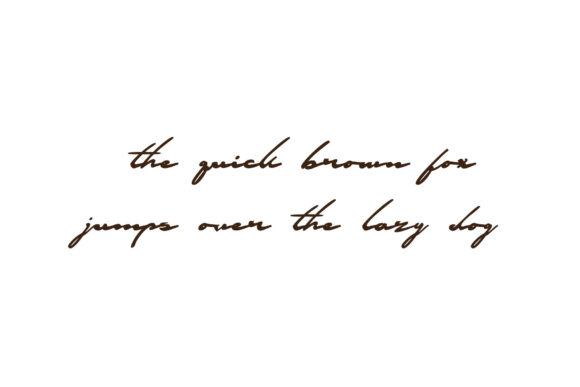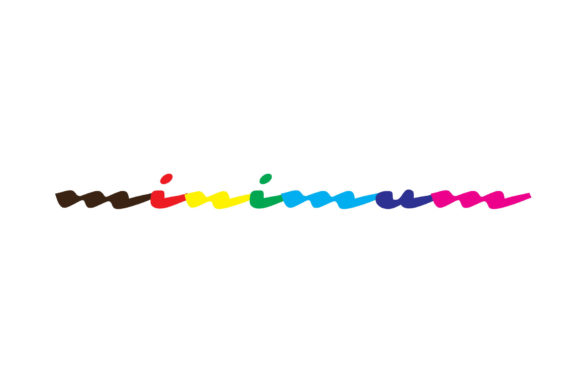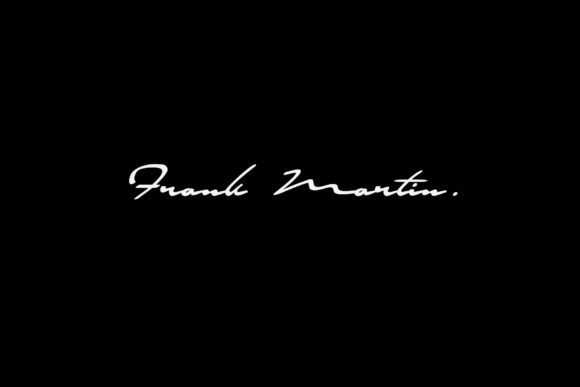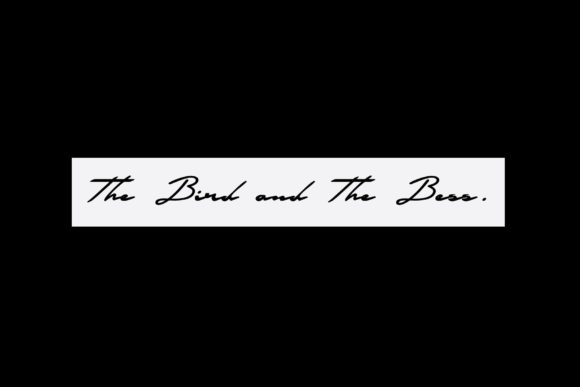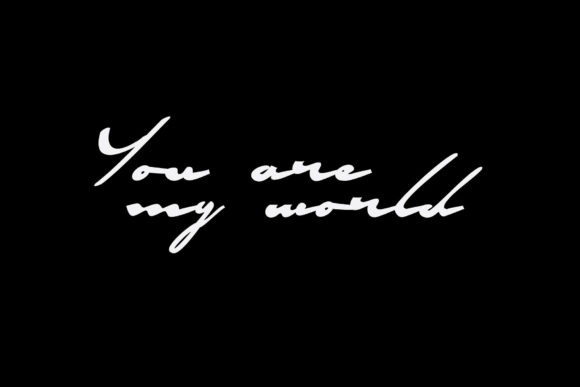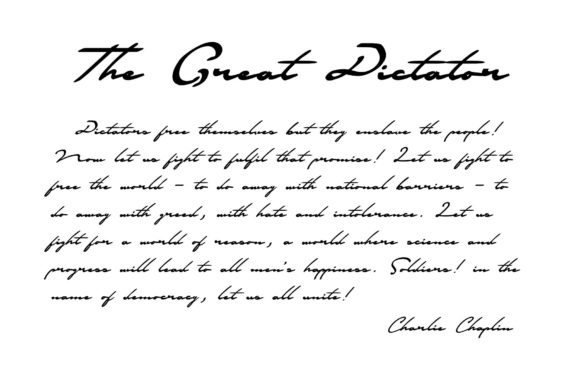
Introduction to Mondio Font
Have you ever stared at a blank page, trying to bring a creative project to life, only to be met with a sea of uninspiring font options? It’s a frustrating feeling, and one that designers know all too well. But what if you could find the perfect font to elevate your design and make it truly shine?
Enter the Mondio Font, a lovely and delicate script font that exudes elegance and class. With its high quality design and transparent background, this font is the perfect addition to any creative project. Whether you’re a seasoned designer or just starting out, the Mondio Font is a valuable resource that’s sure to bring a touch of sophistication to your work.
Key Features of Mondio Font
- Designed to be highly versatile, Mondio Font is suitable for a wide range of applications, from branding and marketing materials to digital products and websites.
- Unique characteristics include a clean and minimalist design, making it perfect for modern and creative projects.
Honest Review: Mondio Font
As a designer, I’m always on the lookout for high-quality design resources to elevate my creative projects. Recently, I stumbled upon the Mondio Font, and I’m excited to share my honest review.
What works well: ✨ The Mondio Font is incredibly versatile, suitable for a wide range of creative projects. Its modern design and clean lines make it perfect for minimalist and contemporary designs. The font is also highly legible, even at small sizes, which is a major plus. Plus, it’s free to download, making it a great addition to any designer’s toolkit.
- High quality: The font is professionally designed and crafted, ensuring a high-quality finish in any design project.
Limitations: ⚠️ While the Mondio Font is generally excellent, there are a few limitations to consider. For example, the font may not be suitable for very large or complex projects, and it may require some tweaking to achieve the perfect look.
Overall, I’m impressed with the Mondio Font. It’s a solid addition to any designer’s toolkit, and its versatility and high quality make it a great choice for a wide range of creative projects.
Mondio Font
Tips for Getting the Most Out of Mondio Font
To get the most out of the Mondio Font, experiment with different font sizes, colors, and styles to create a unique and eye-catching design. You can also combine the Mondio Font with other design elements to create a cohesive and professional look.
The Mondio Font is ideal for a variety of creative projects, including brochures, posters, business cards, and social media graphics. Its high-quality design and transparent background make it a versatile and reliable design resource.